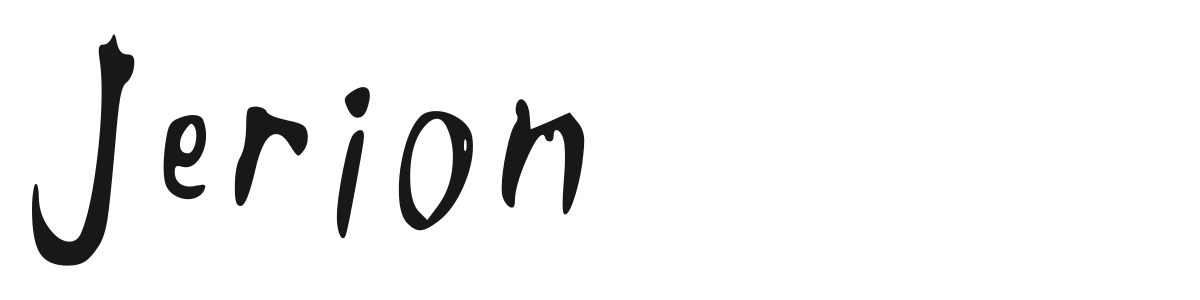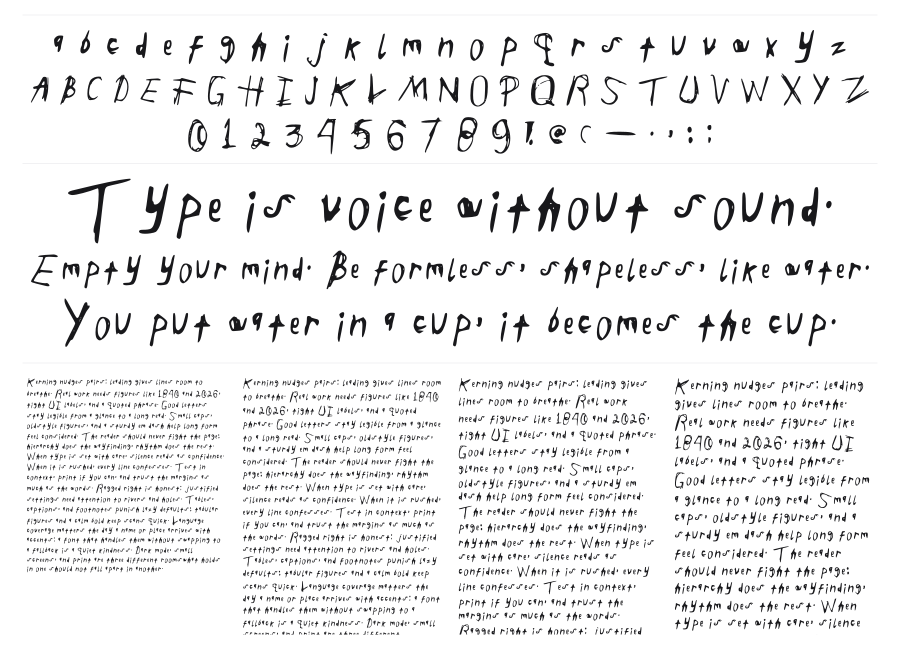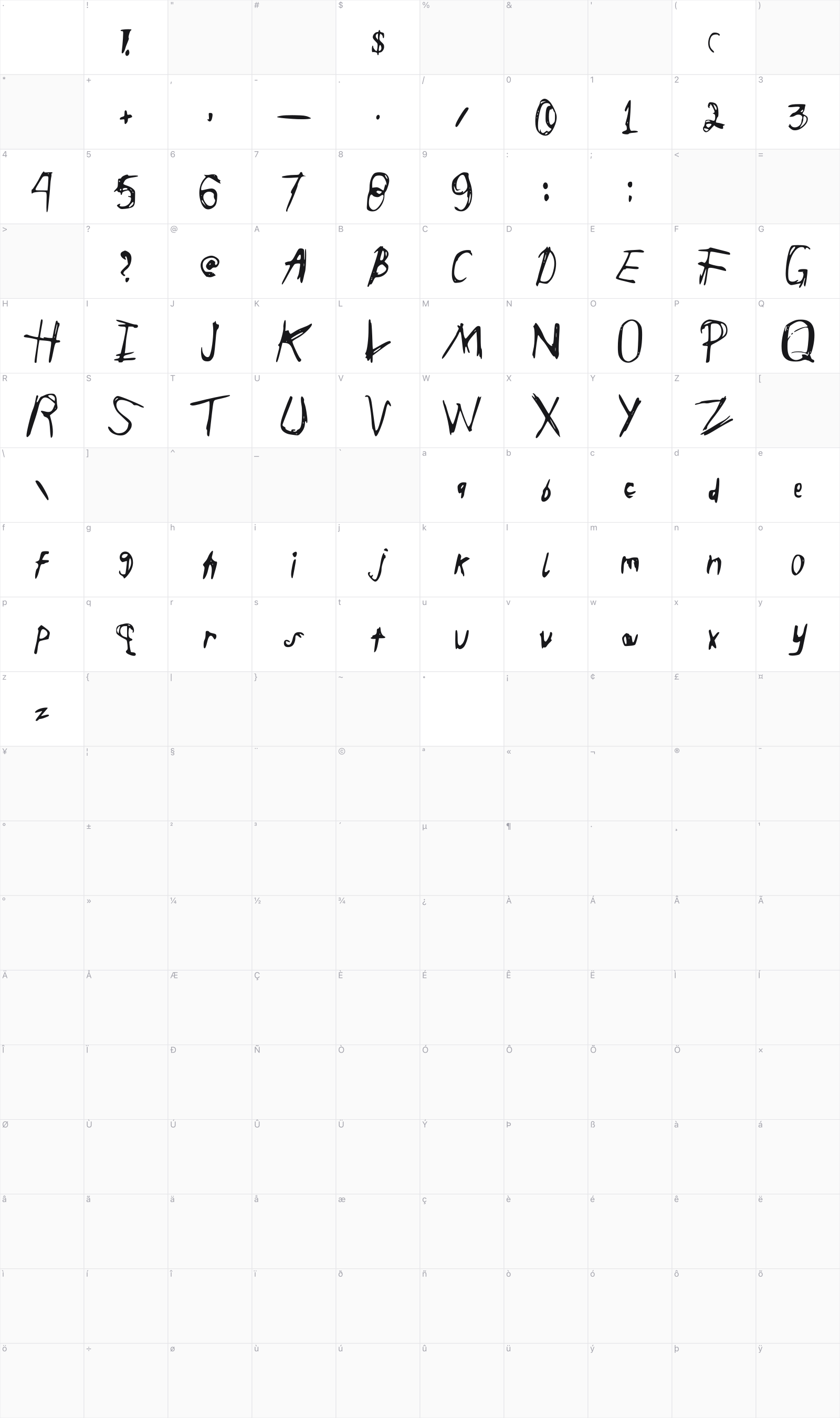
Jerion
Jerion is a raw, freehand script drawn with the energy of someone writing fast and not caring about the rules. Each character tilts and wobbles at its own angle, with ink-swollen strokes and unpredictable sizing that make the whole thing feel alive and slightly unhinged. A strong choice for projects that need to look unpolished on purpose.